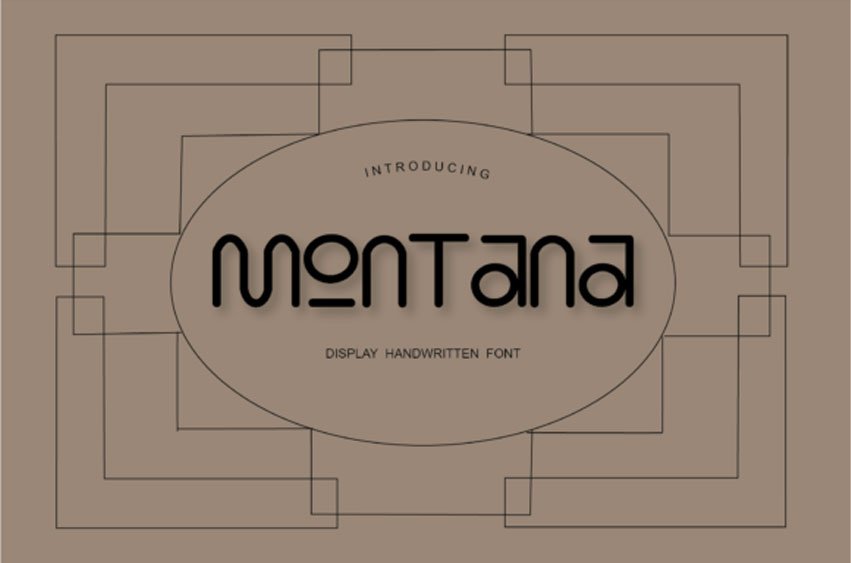
Montana Font
Montana Font is a very elegant typeface designed with scope to achieve a luxurious aspect.
It can be used wonderfully for packaging designs, fashion design related themes, fragrance designs, cosmetic designs, social posts, etc. Use it with confidence in your creations and you will see amazing results.